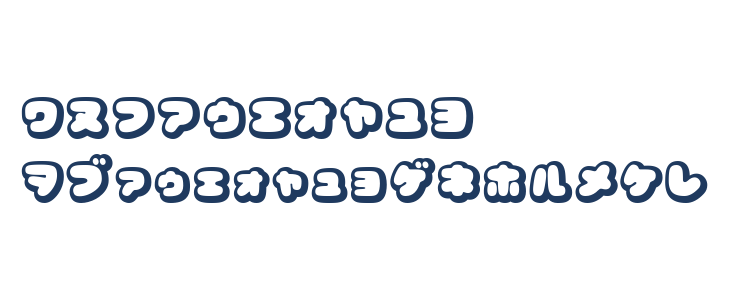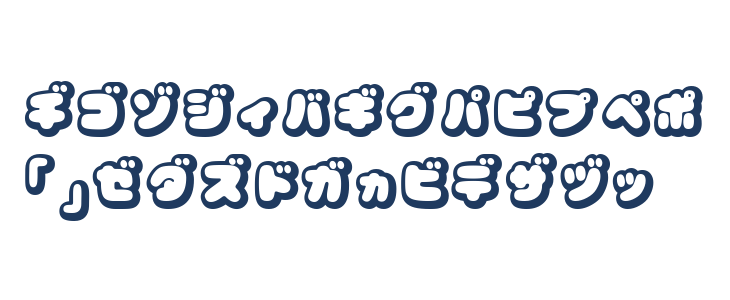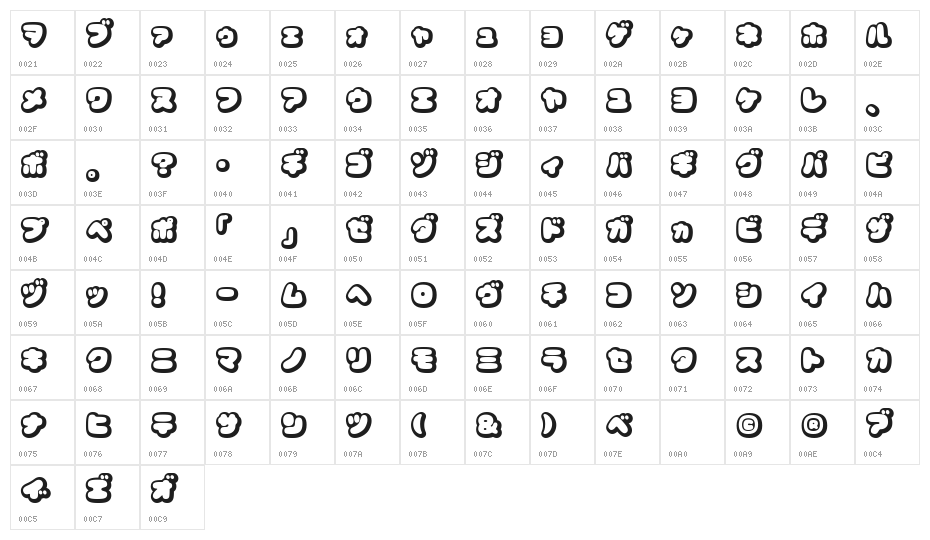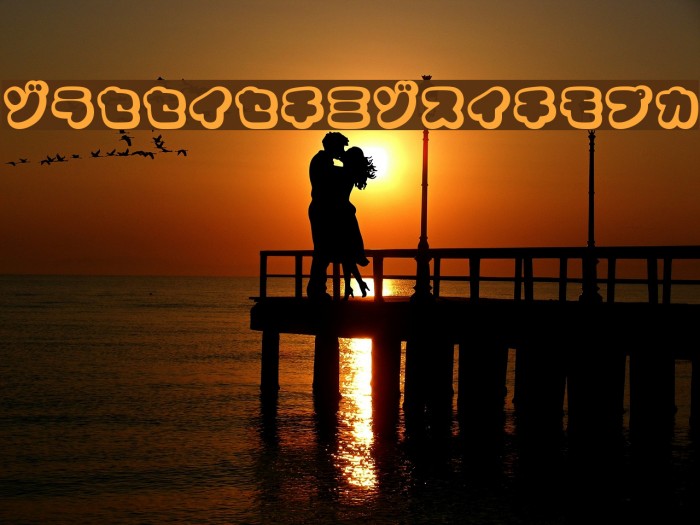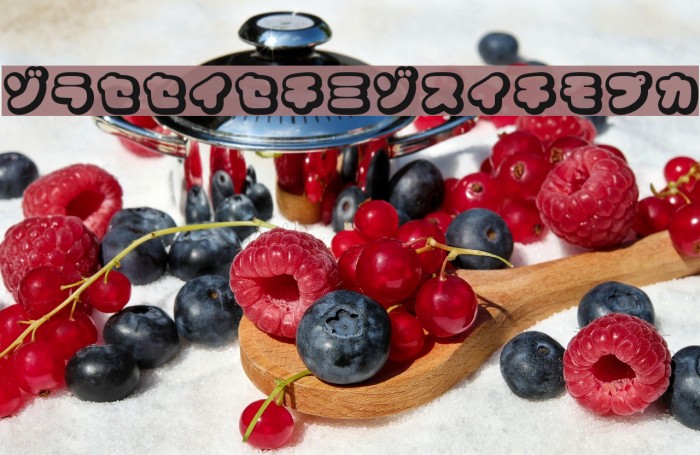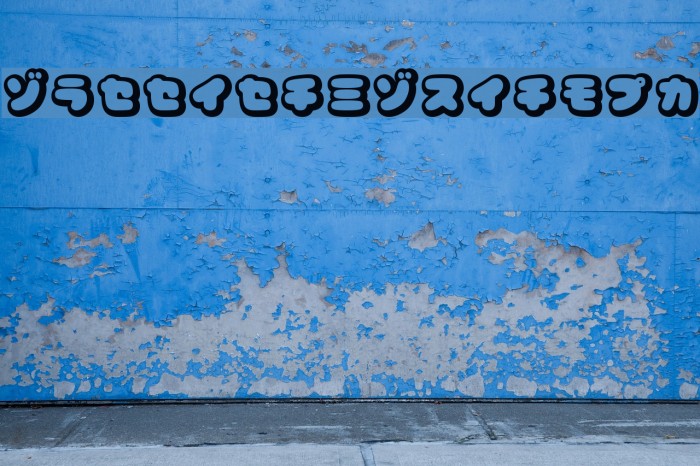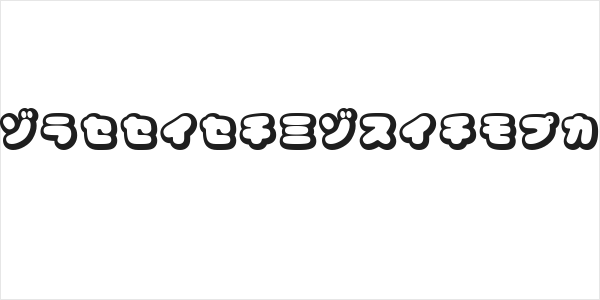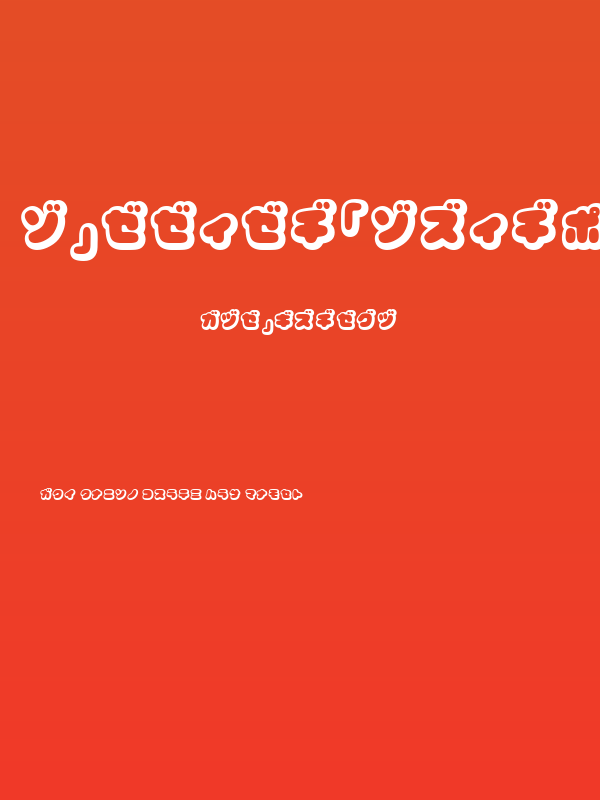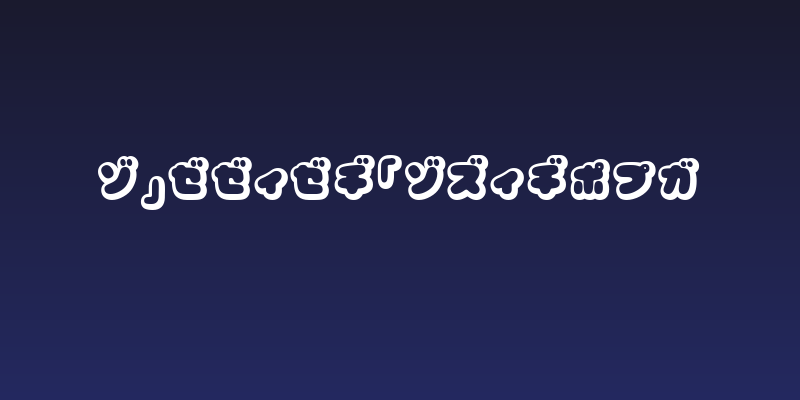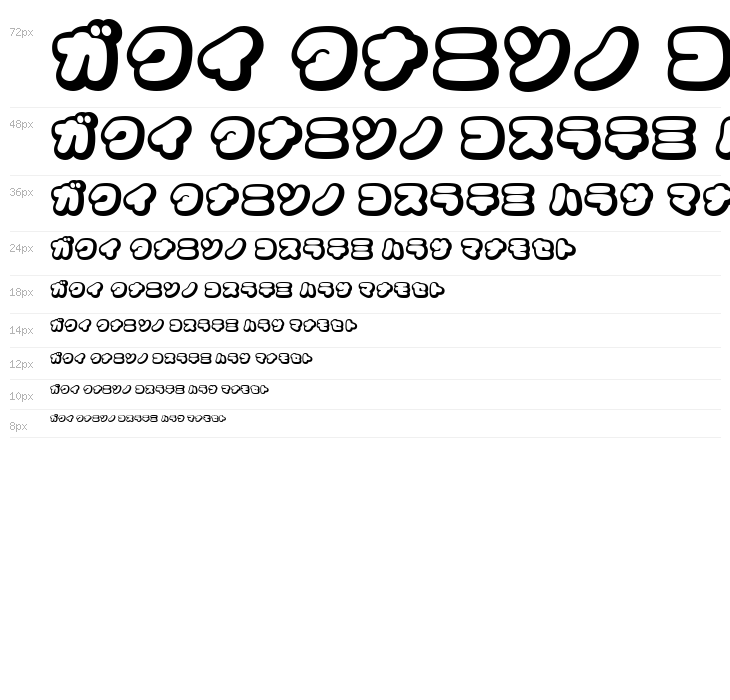
CoppepanCreamKt Font
CoppepanCreamKt Description
This font features a playful and bold design with rounded, bubble-like characters. The strokes are thick and consistent, giving it a cartoonish and friendly appearance. The characters are evenly spaced, contributing to a clean and organized look. The overall style is highly decorative, making it suitable for projects that require a fun and engaging visual element. The font's unique style is perfect for capturing attention and conveying a sense of whimsy and creativity.
| Proposed Projects | Ideal for children's books, comic strips, playful branding, and party invitations. |